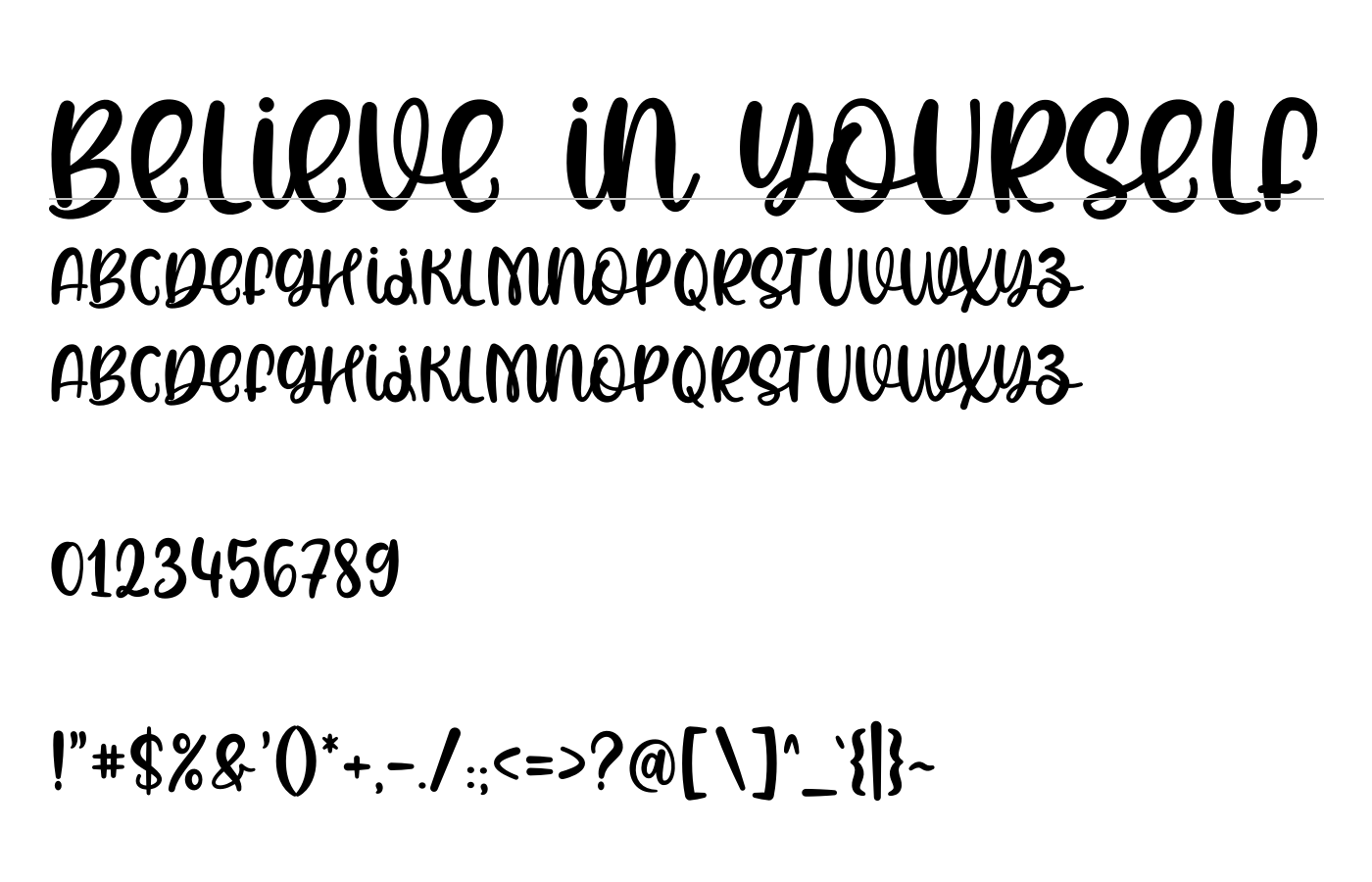
Believe In Yourself is a lively and friendly handwritten script font with a playful charm. Its smooth, rounded strokes and moderate contrast create a casual, approachable feel perfect for uplifting and creative designs. This font works wonderfully for invitations, social media graphics, and branding that aims to inspire positivity and warmth.
Believe In Yourself Font
About Believe In Yourself Font
| Font family | Believe In Yourself Font |
| Designer | letter art studio |